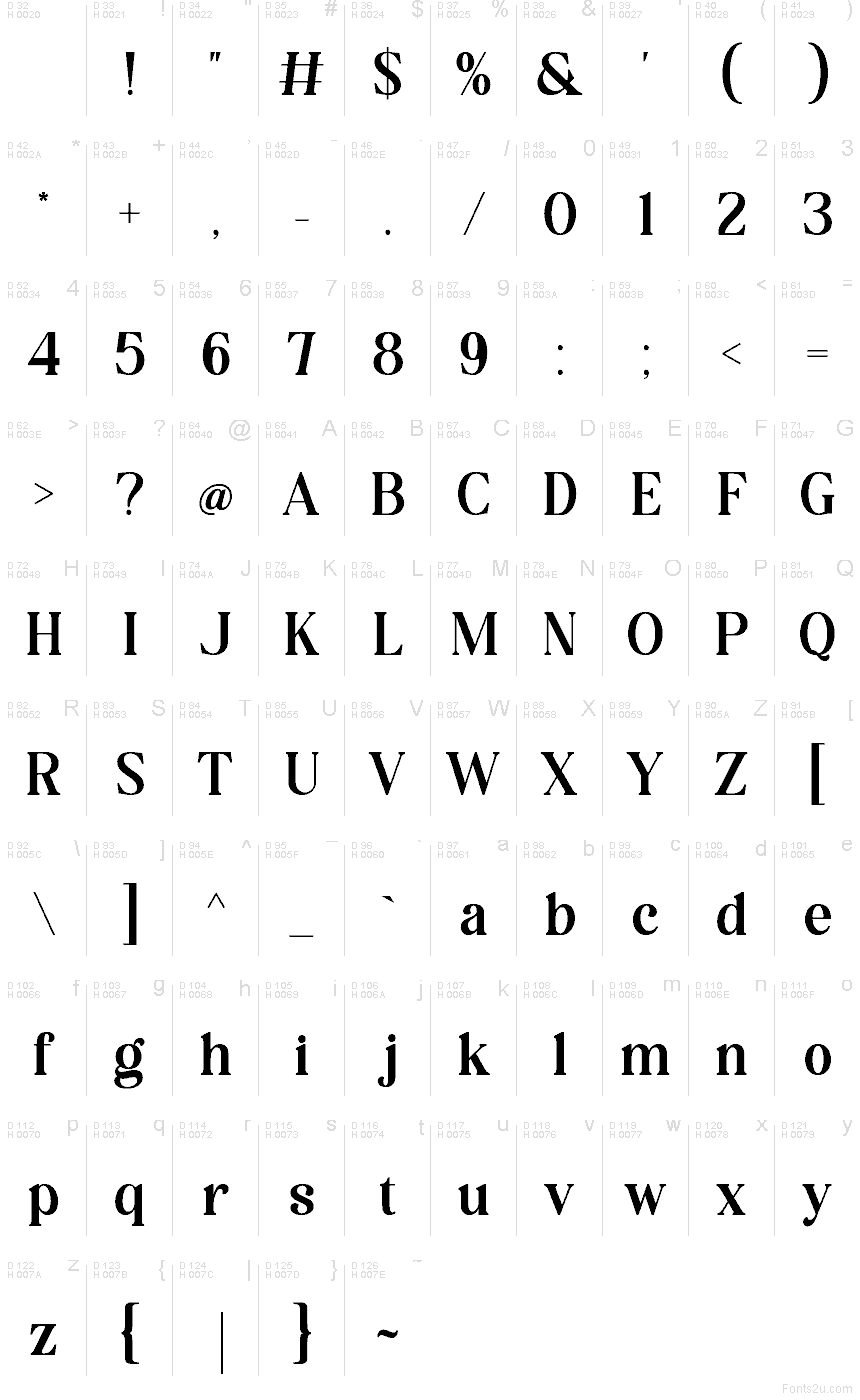
Bugalo font by Burhan Afif of HansCo Studio brings a bold, buttery serif voice with slightly swollen curves and crisp wedge details that feel inked and handcrafted. It’s a free serif font, and the typeface has a friendly heft that stays readable while still feeling a little mischievous.
Using Bugalo, you’ll get punchy results on book covers, café menus, packaging, magazine mastheads, event posters, podcast art, and brand wordmarks. This free font also shines on pull quotes and short headlines where its roomy rhythm can breathe. Pair it with a clean geometric sans for body copy, and give it a touch of extra tracking at larger sizes.